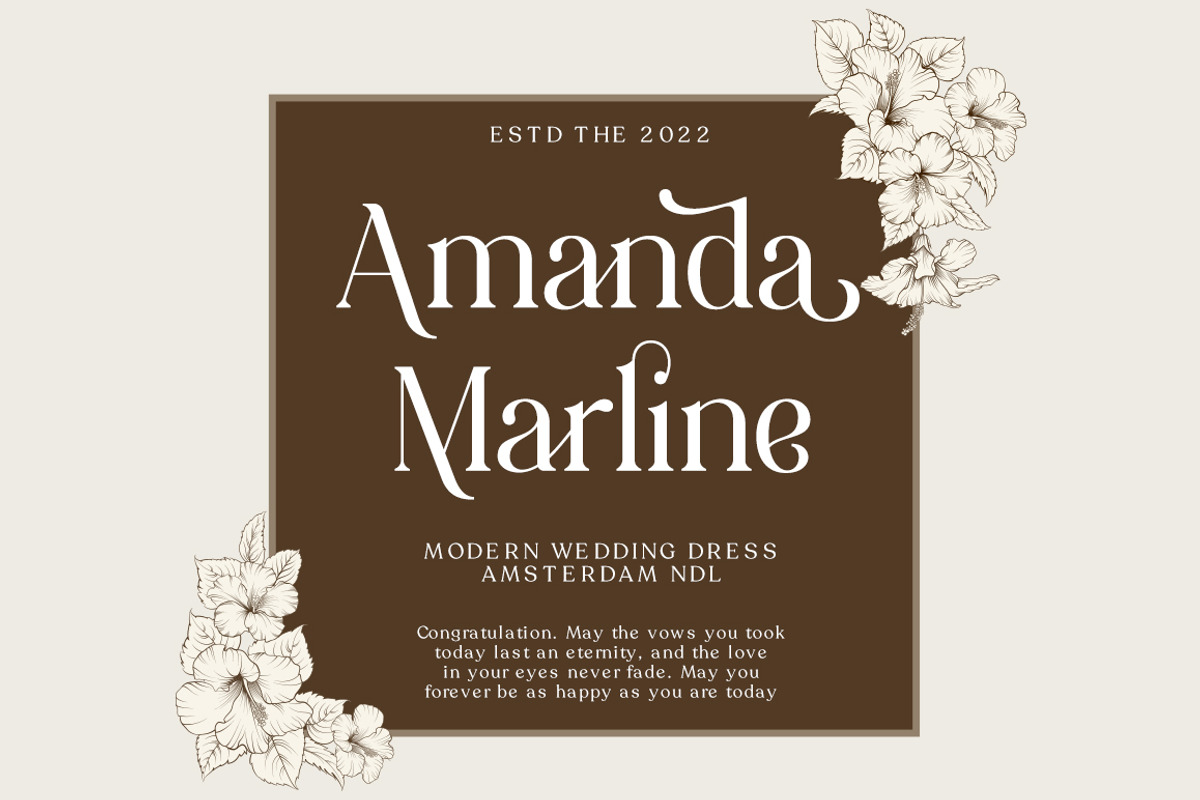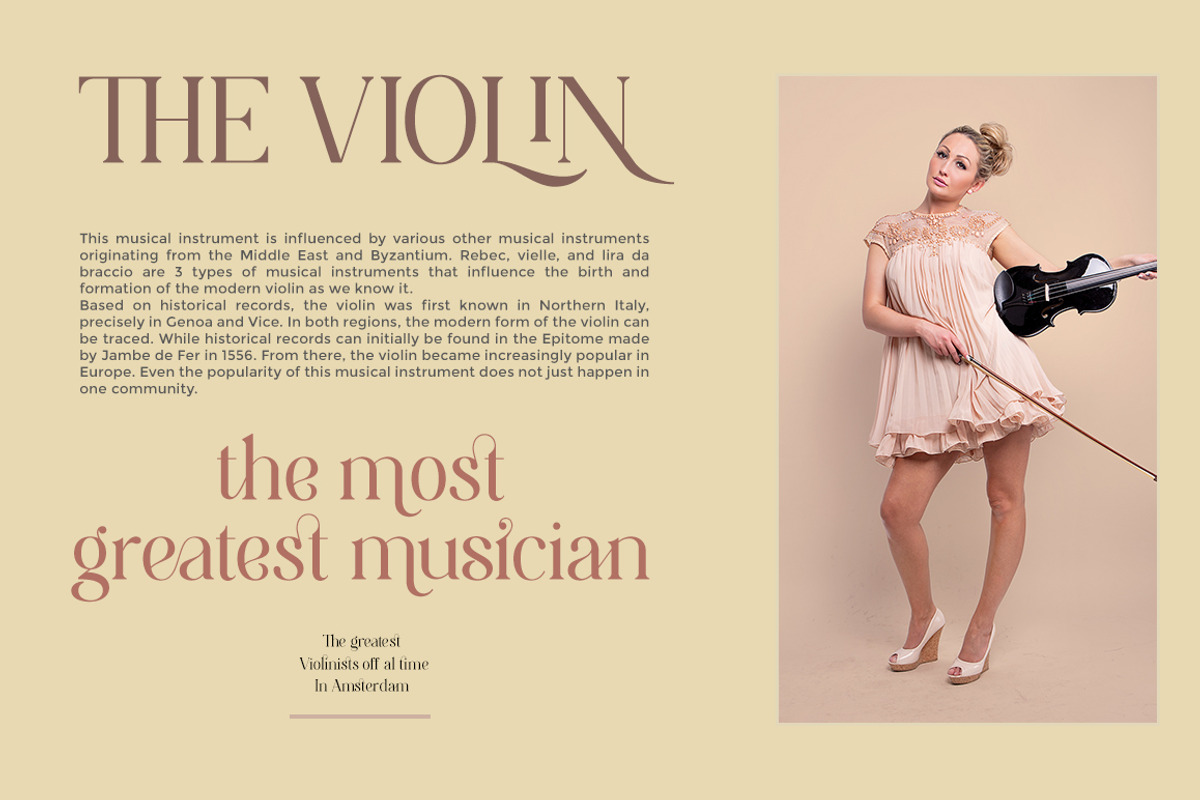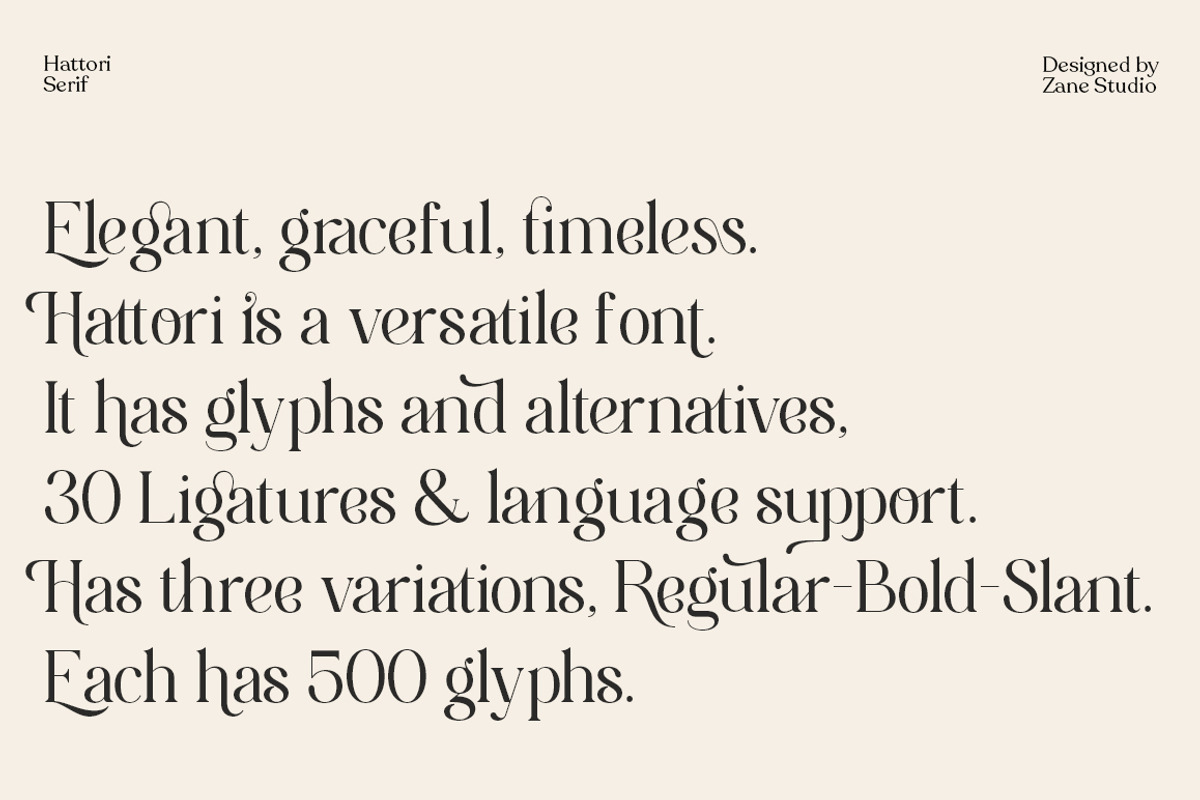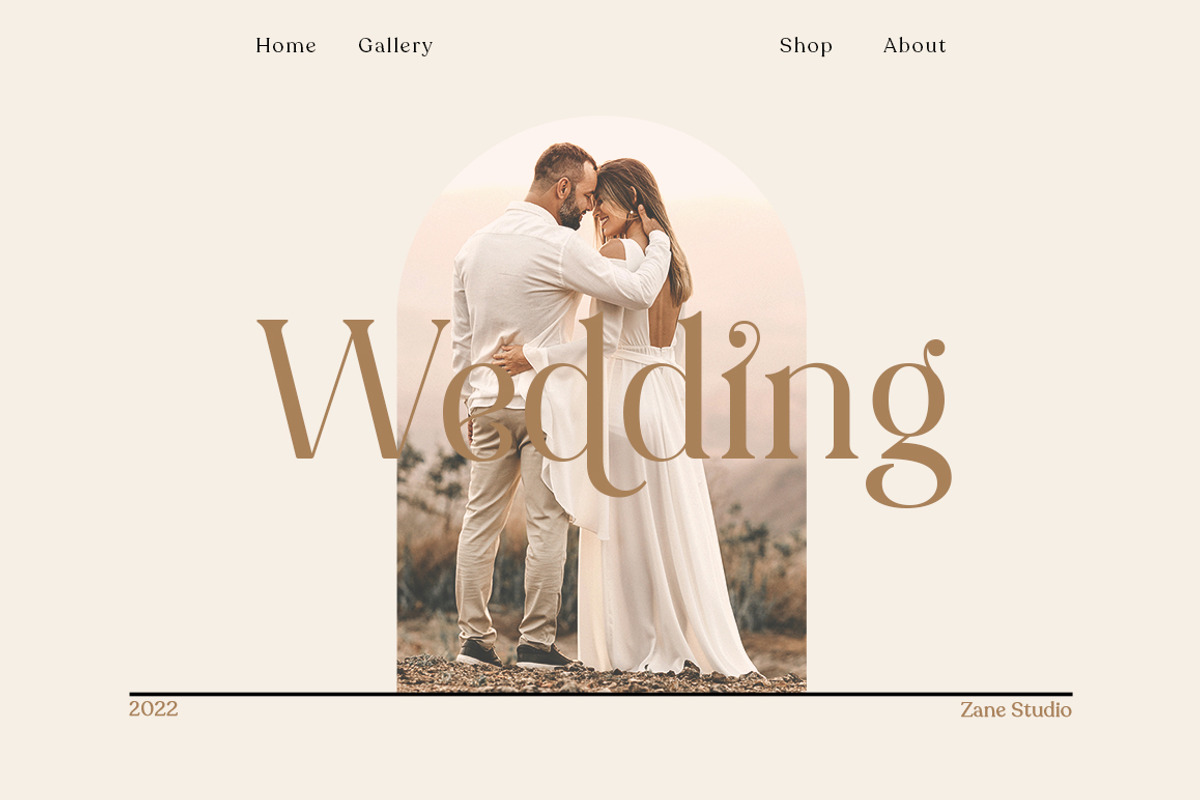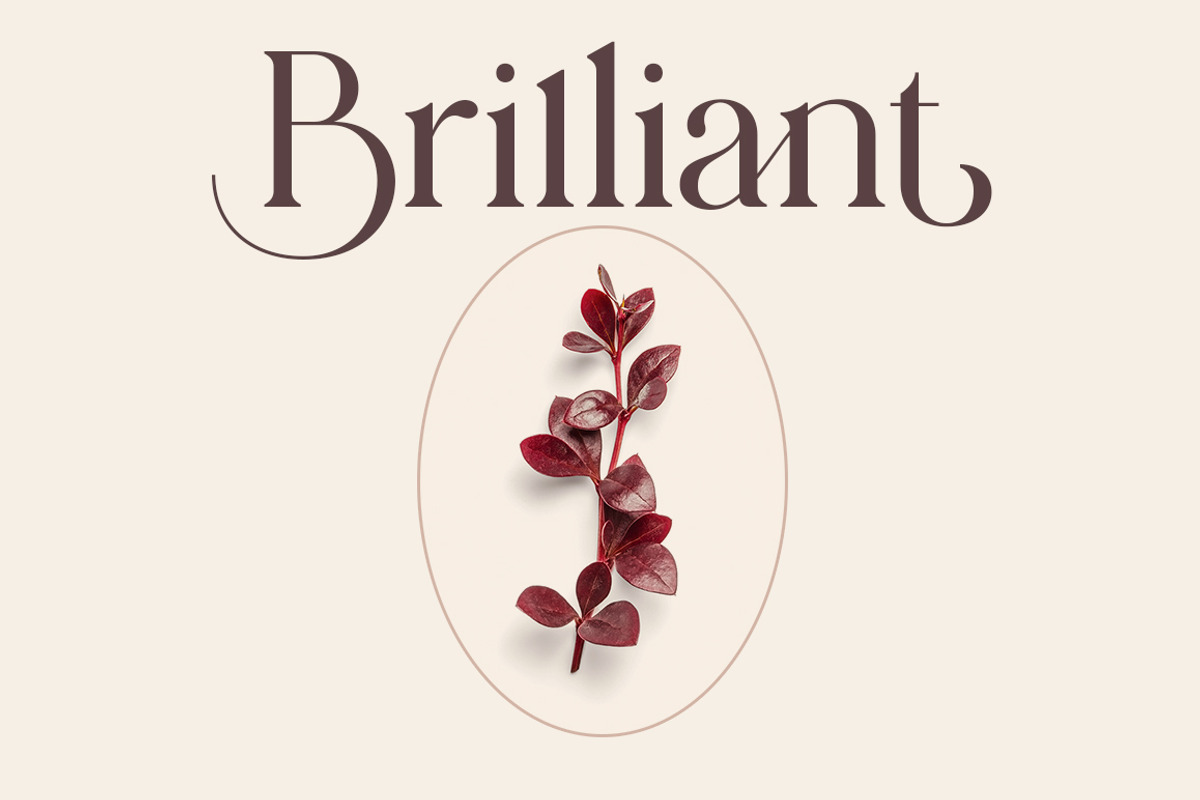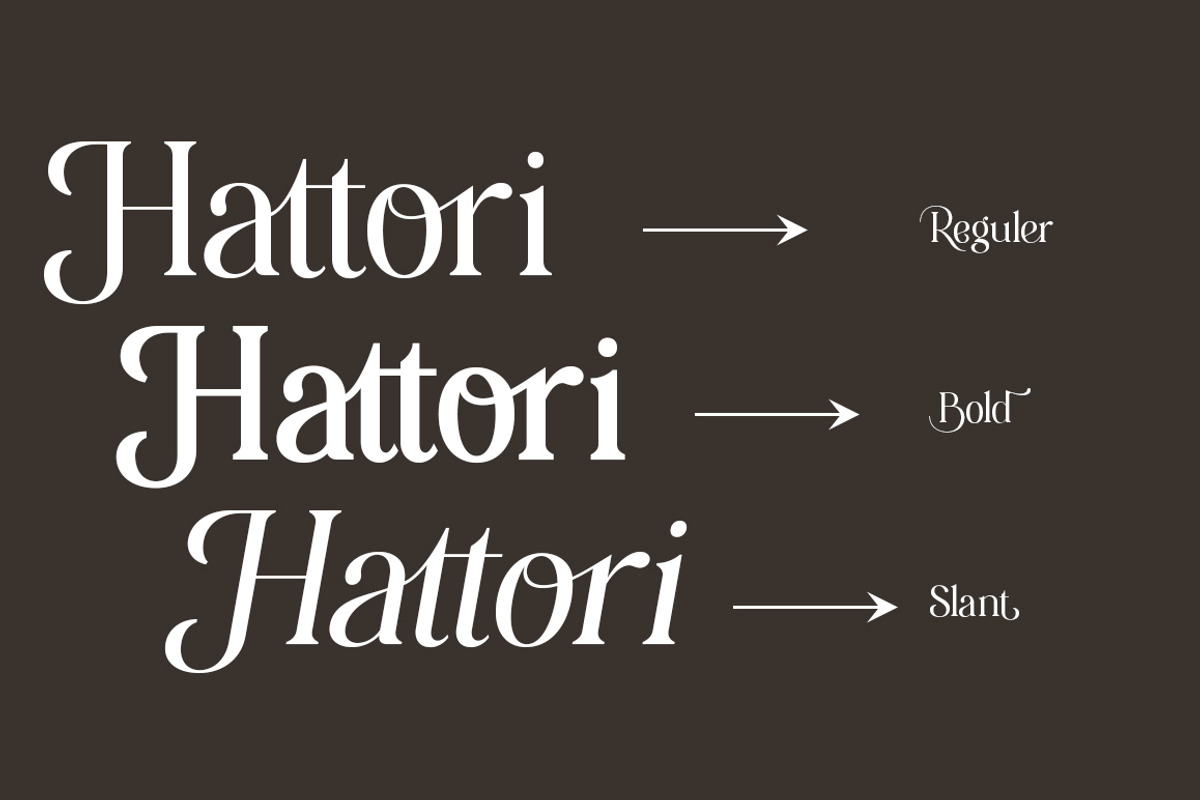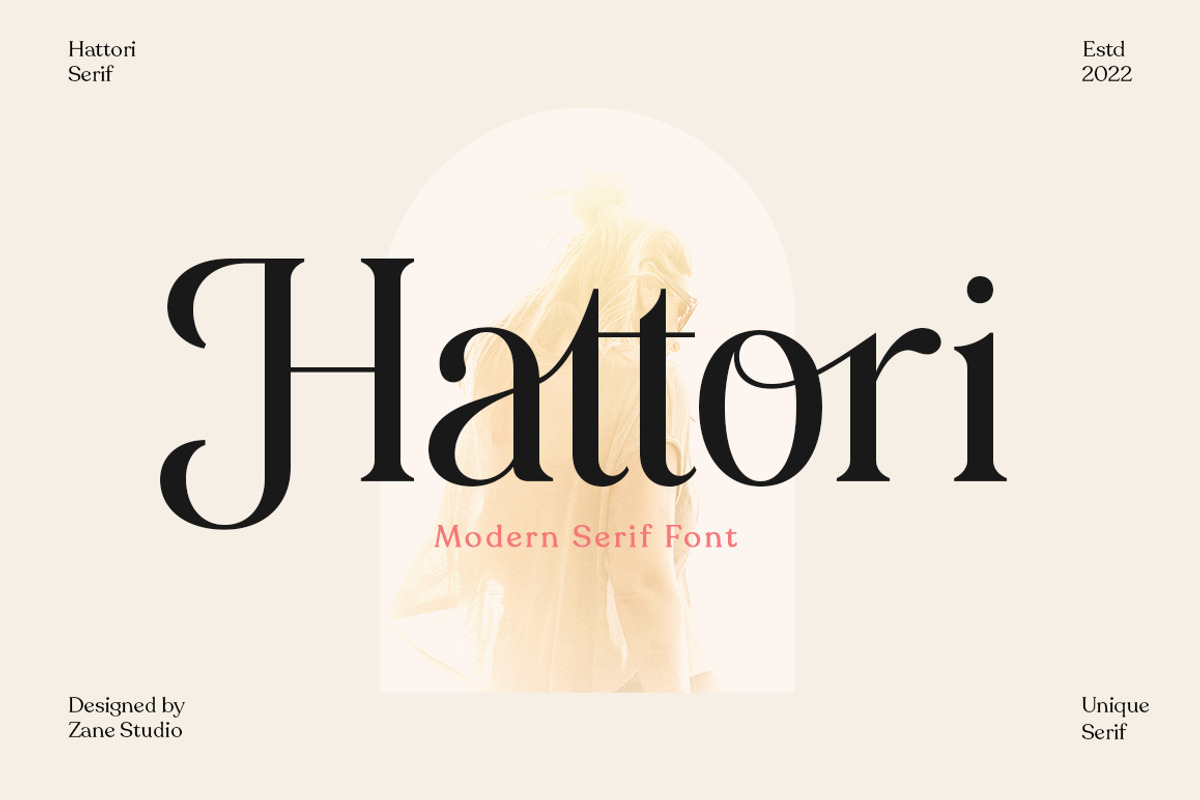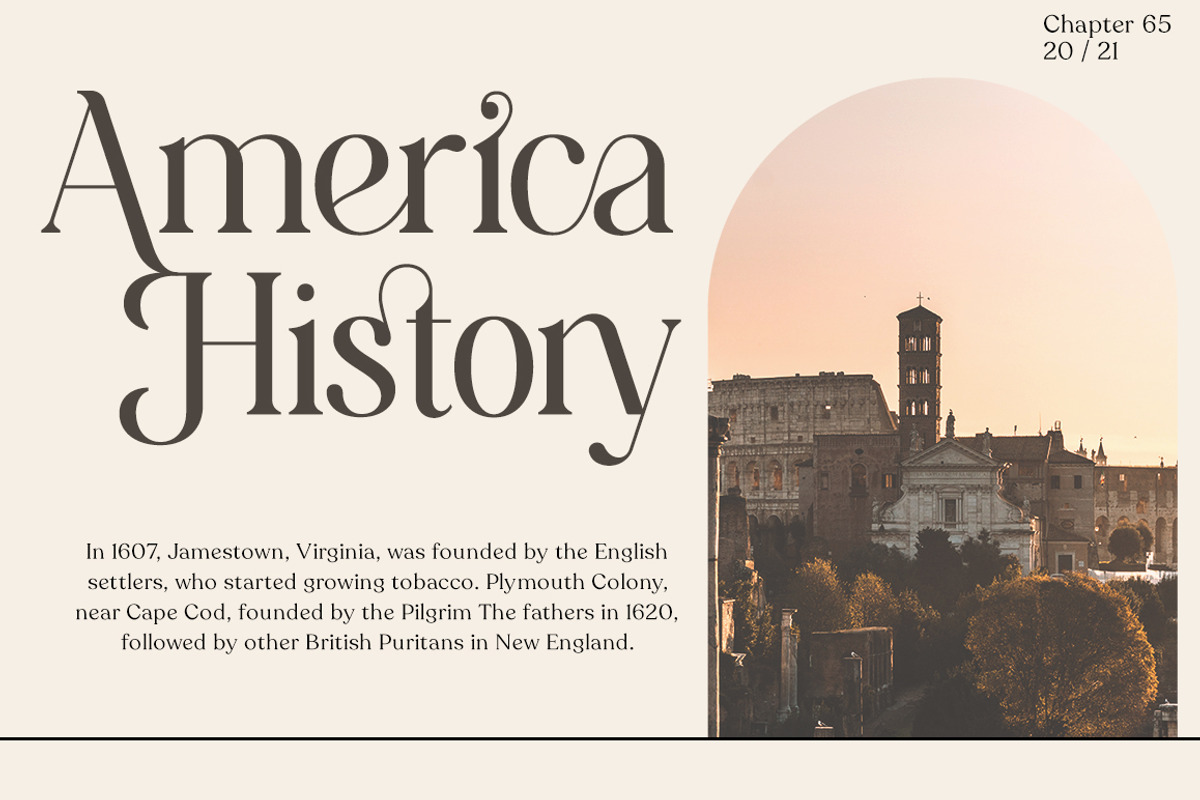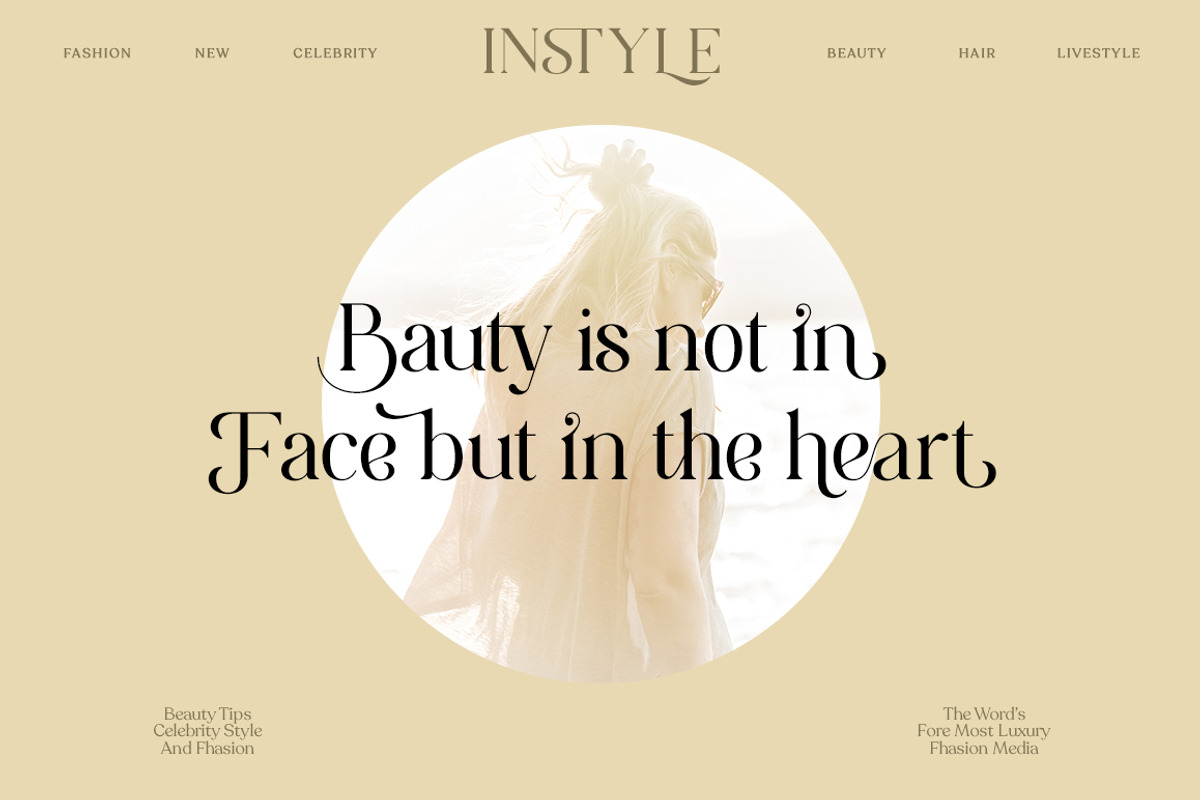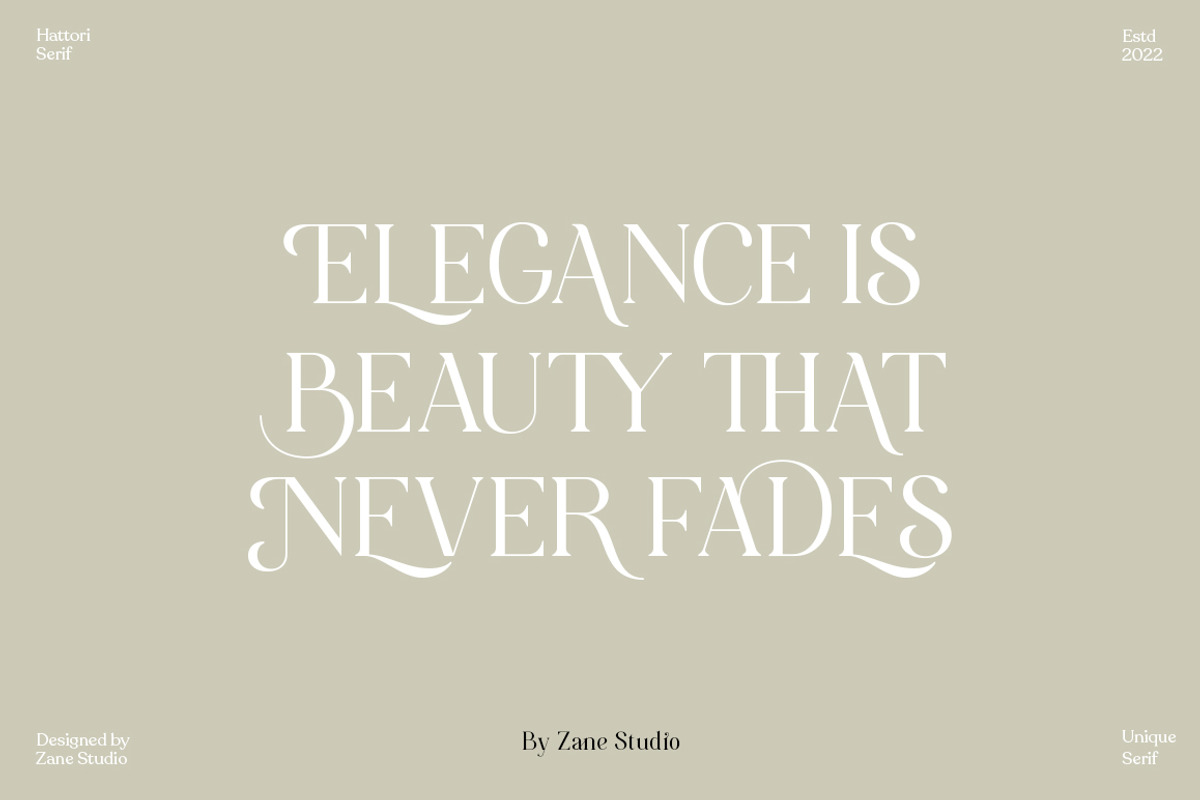
Hattori Elegant Font
Elegant, graceful and timeless. Hattori is a versatile font family with timeless classic appeal, over 50 alternatives & ligatures, multilingual support,(And we think this is our best work so far!)
Each letter has been hand-drawn and made with great care. The variety of weights provides a variety of options that will help you find the best typographic character for your project. Hattori is perfect for big screen use and high impact headlines. The available binding and style alternatives offer a number of different options that give your logo or business card a unique look. This high-contrast serif typeface has a glyph and offers comprehensive language support.